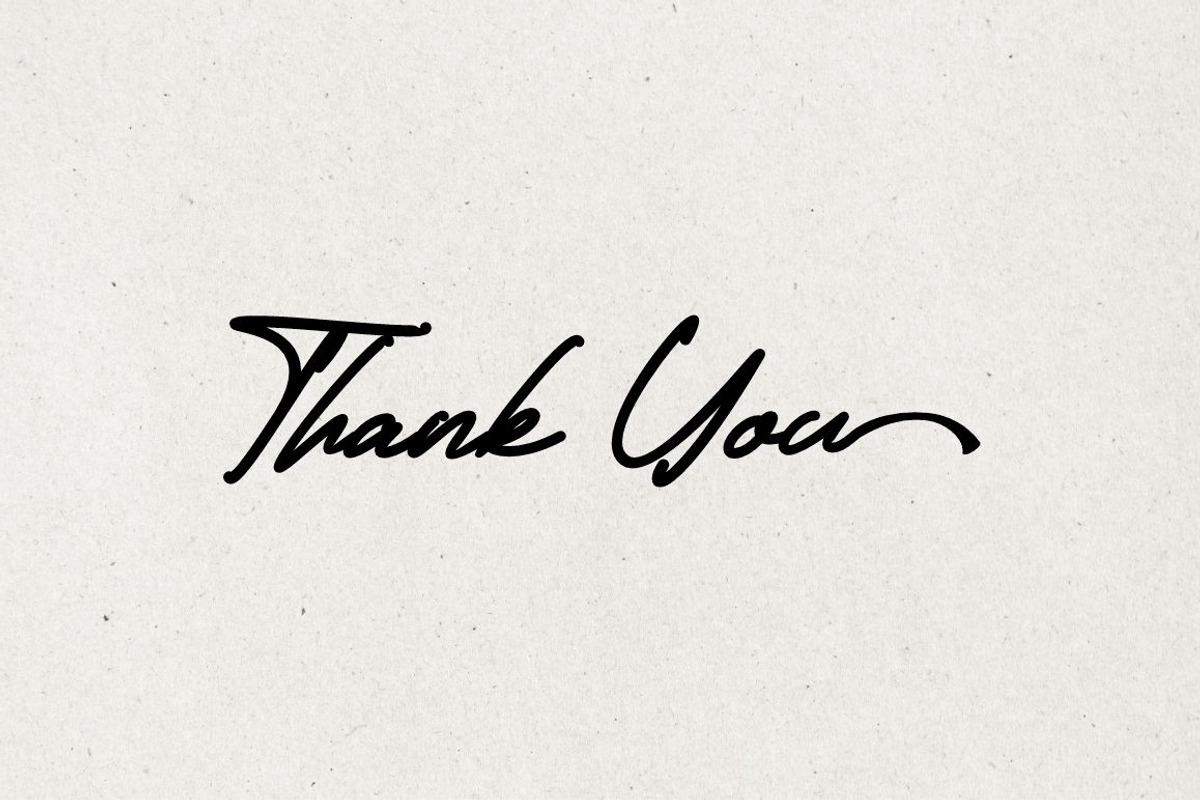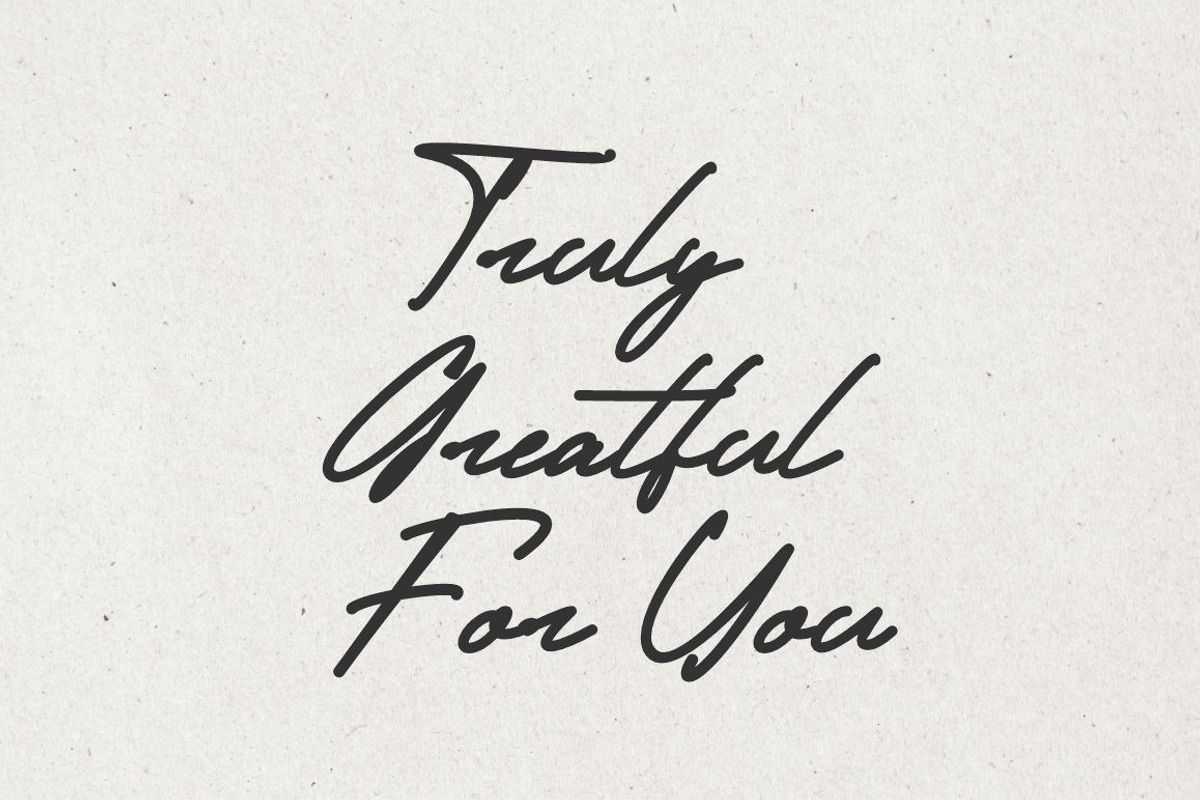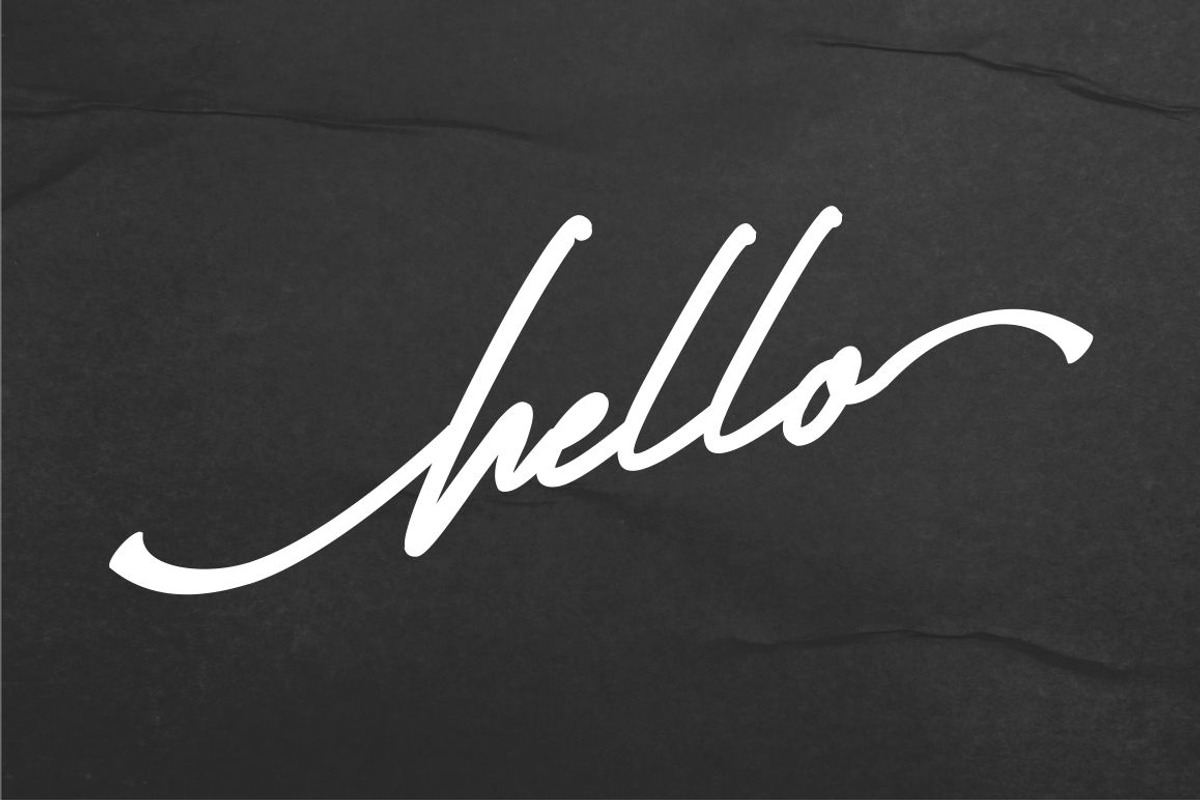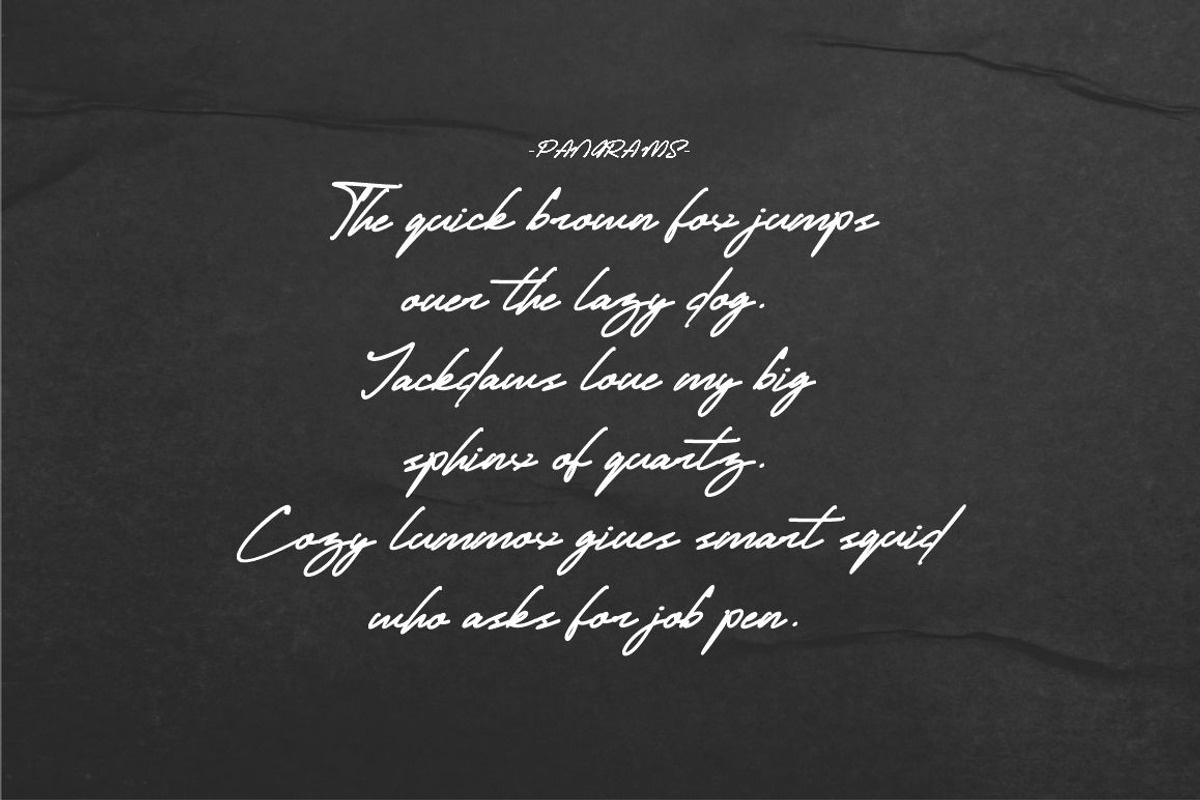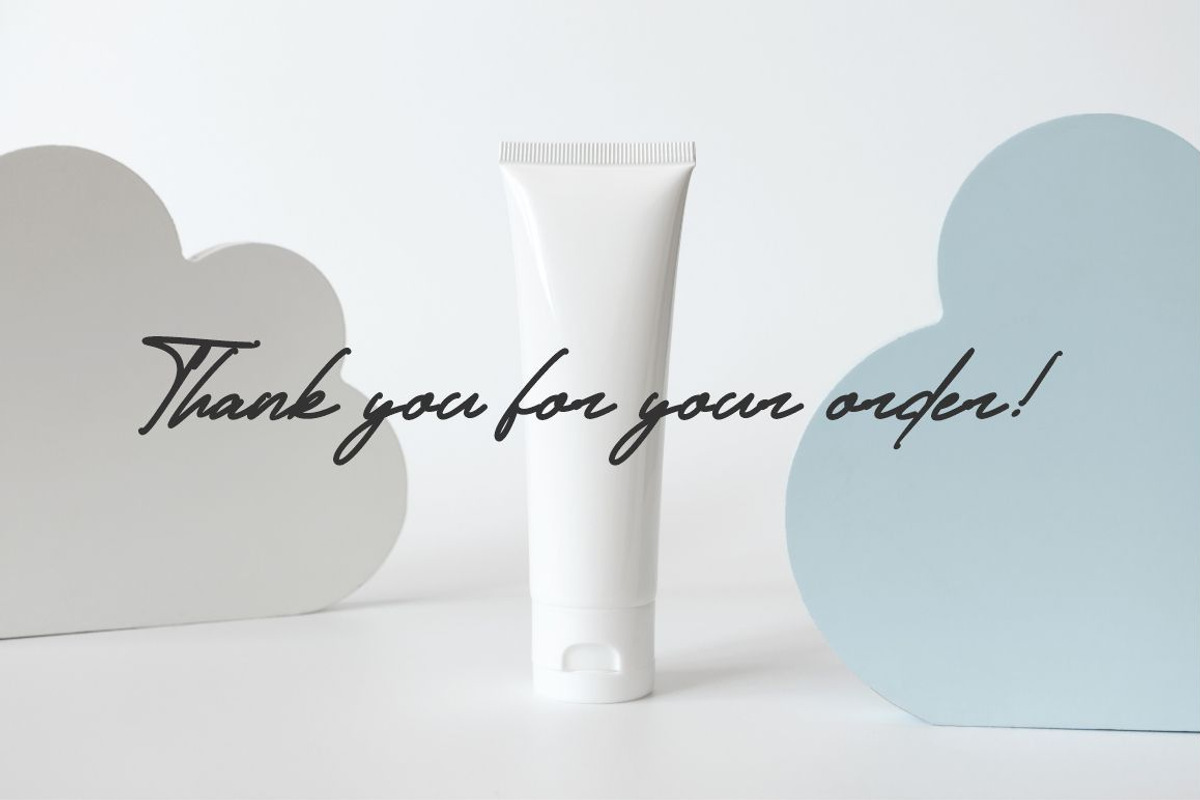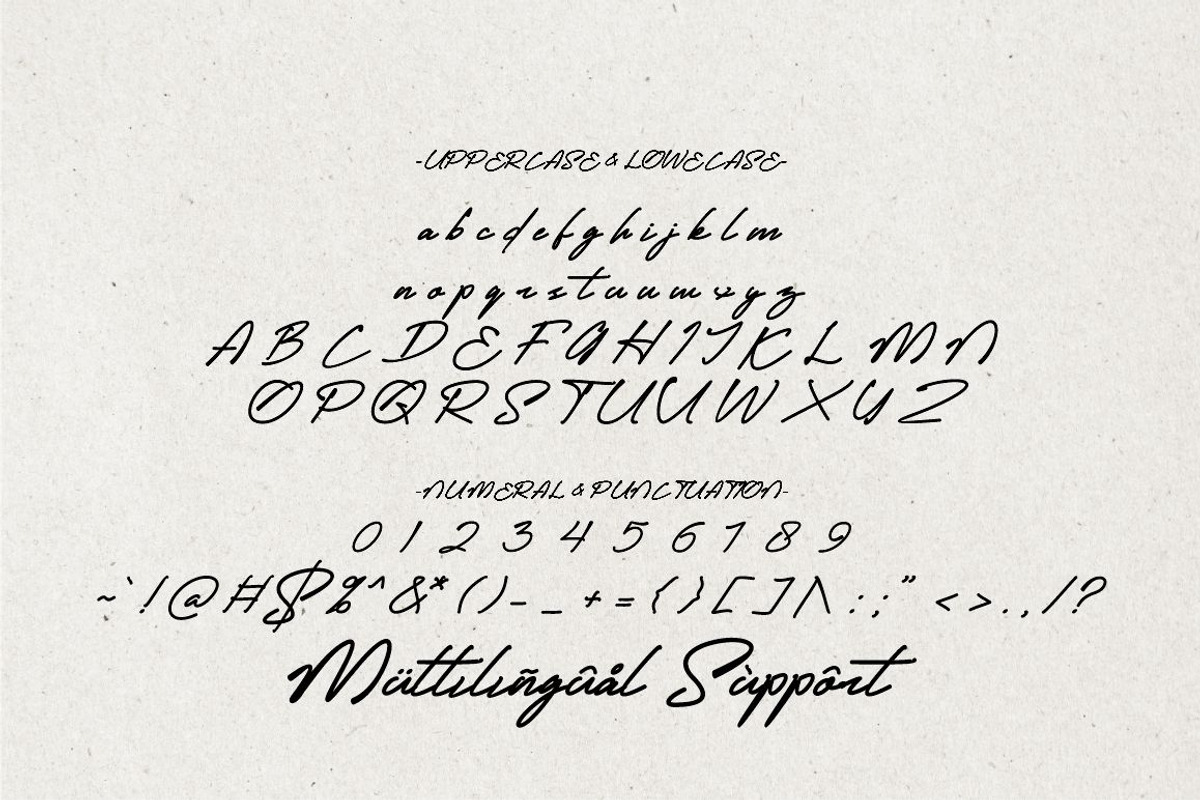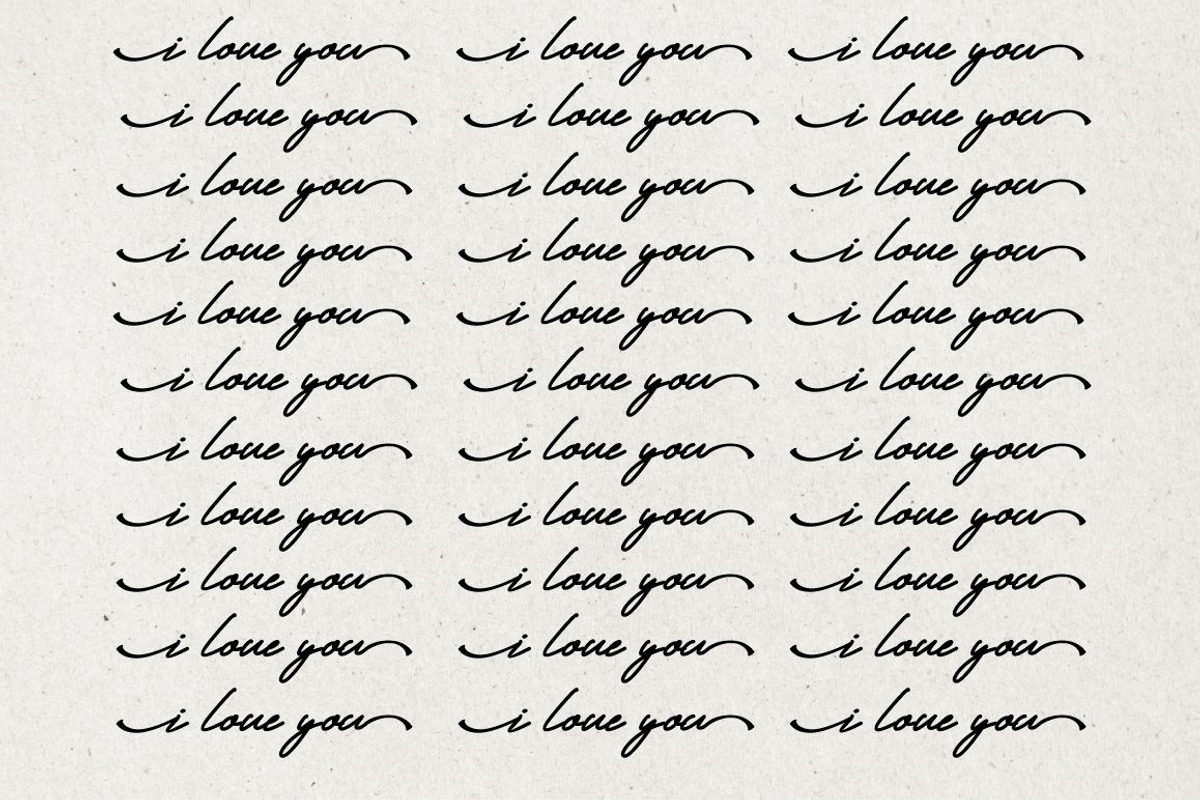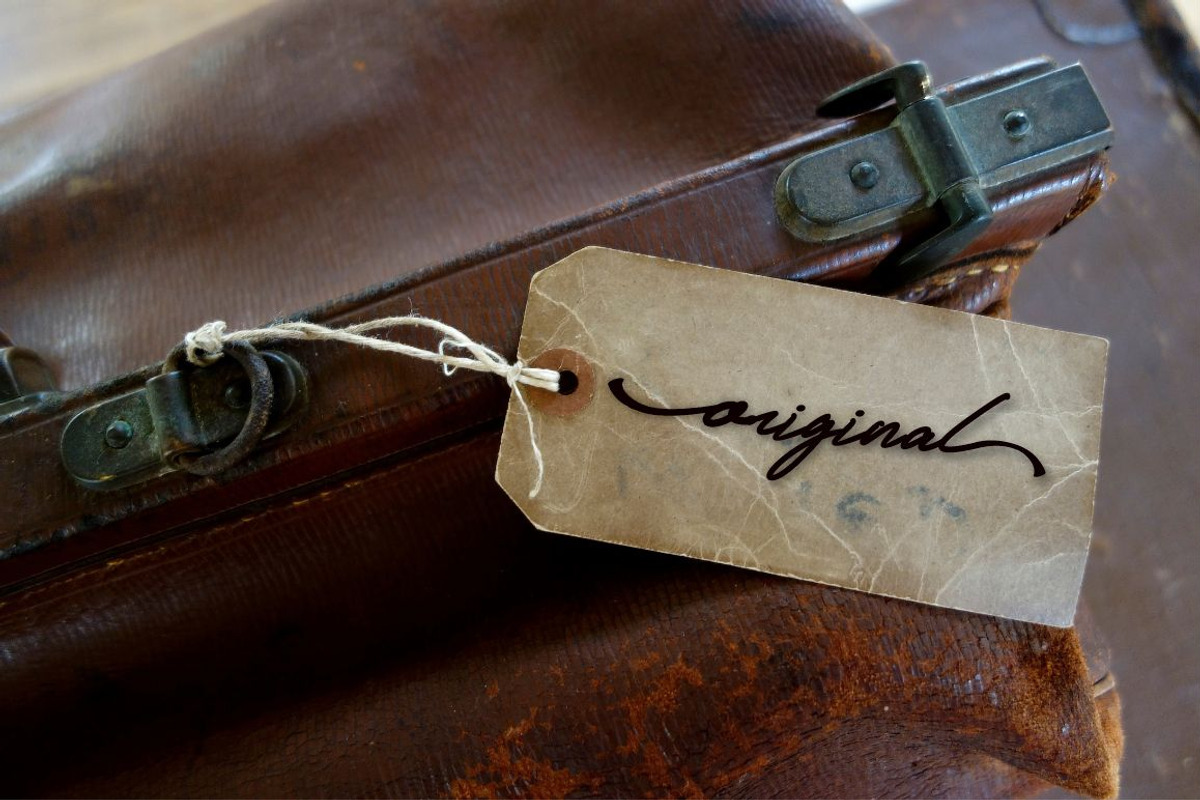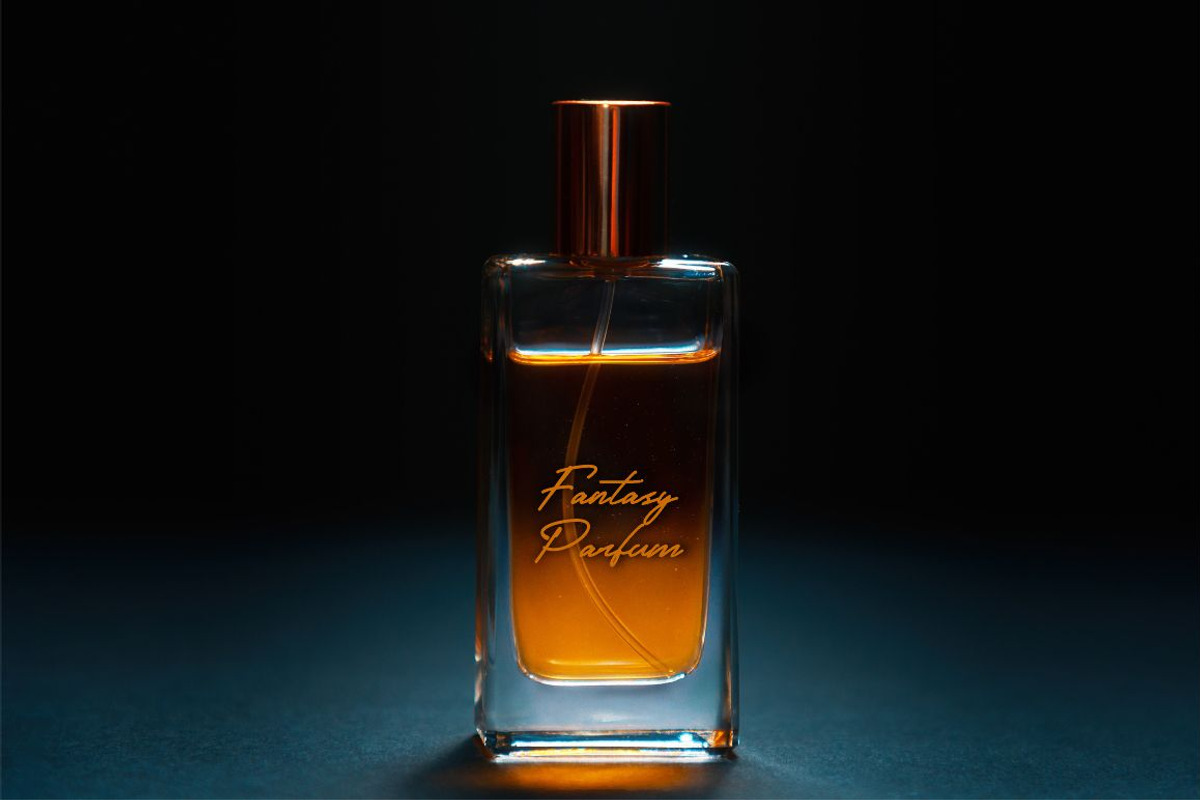
Roda Dua Signature
Introducing "Roda Dua" is a stylish, handwritten signature font with a sleek, personal touch that captures the essence of casual elegance. The fluid strokes and smooth curves give it a refined yet relaxed appearance, making it perfect for designs that need a sophisticated, authentic feel. Ideal for branding, invitations, or any creative project that calls for a personalized, unique touch, Roda Dua offers a versatile look that blends seamlessly with modern and minimalist aesthetics. With its balanced lines and natural flow, this font embodies the charm of hand-drawn signatures, making any text stand out beautifully.